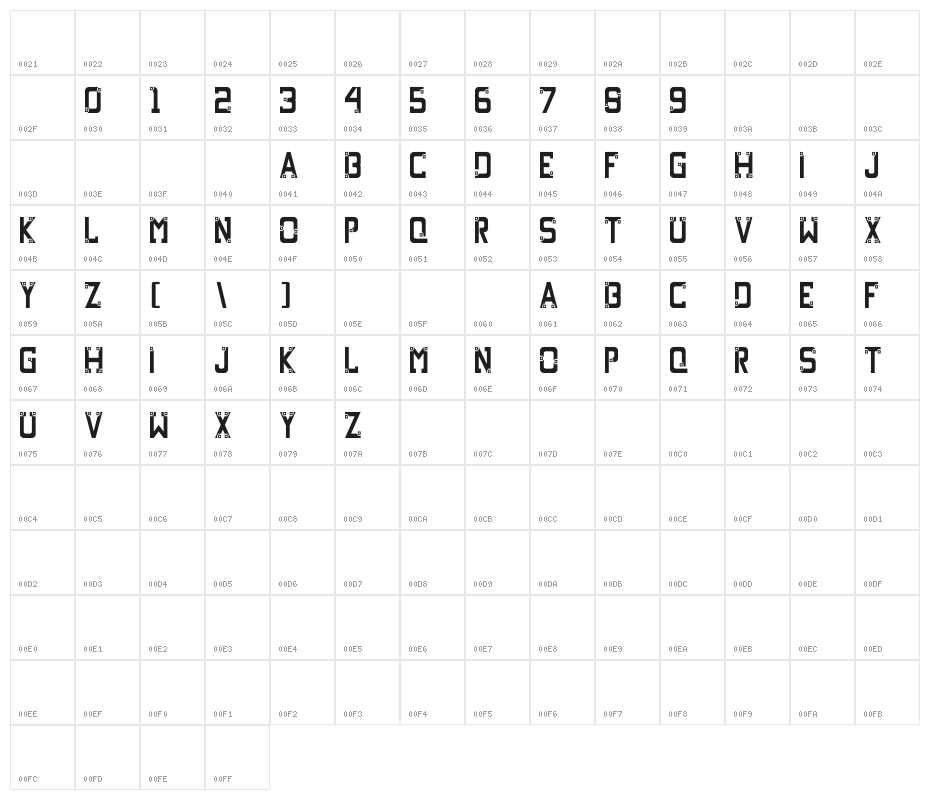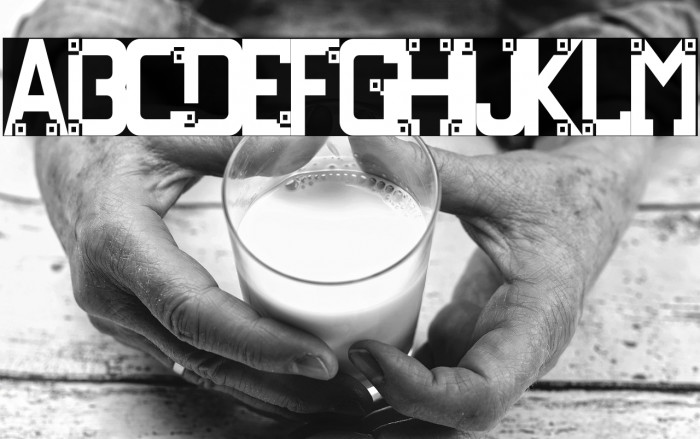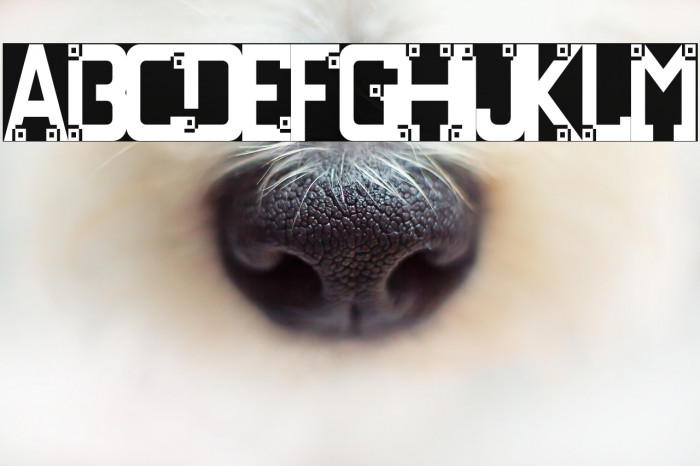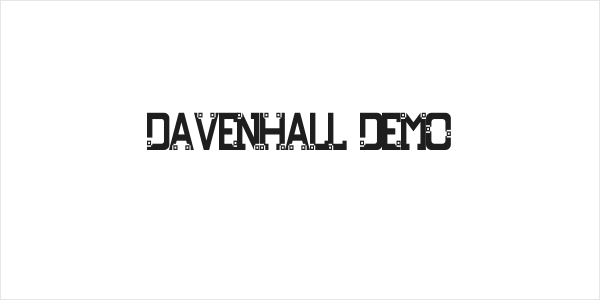
Davenhall Demo Font
Davenhall Demo Description
This font features a bold, geometric design with a futuristic and digital aesthetic. The characters are constructed with thick, block-like strokes that create a strong presence. The angular and squared-off edges give it a modern and technical feel, reminiscent of digital displays or sci-fi themes. The uniformity in stroke width across all characters provides a cohesive look, while the unique cutouts and angles add a distinctive flair. This font is highly legible and commands attention, making it suitable for impactful visual statements.
| Proposed Projects | Ideal for tech branding, sci-fi posters, video game titles, and digital interfaces. |